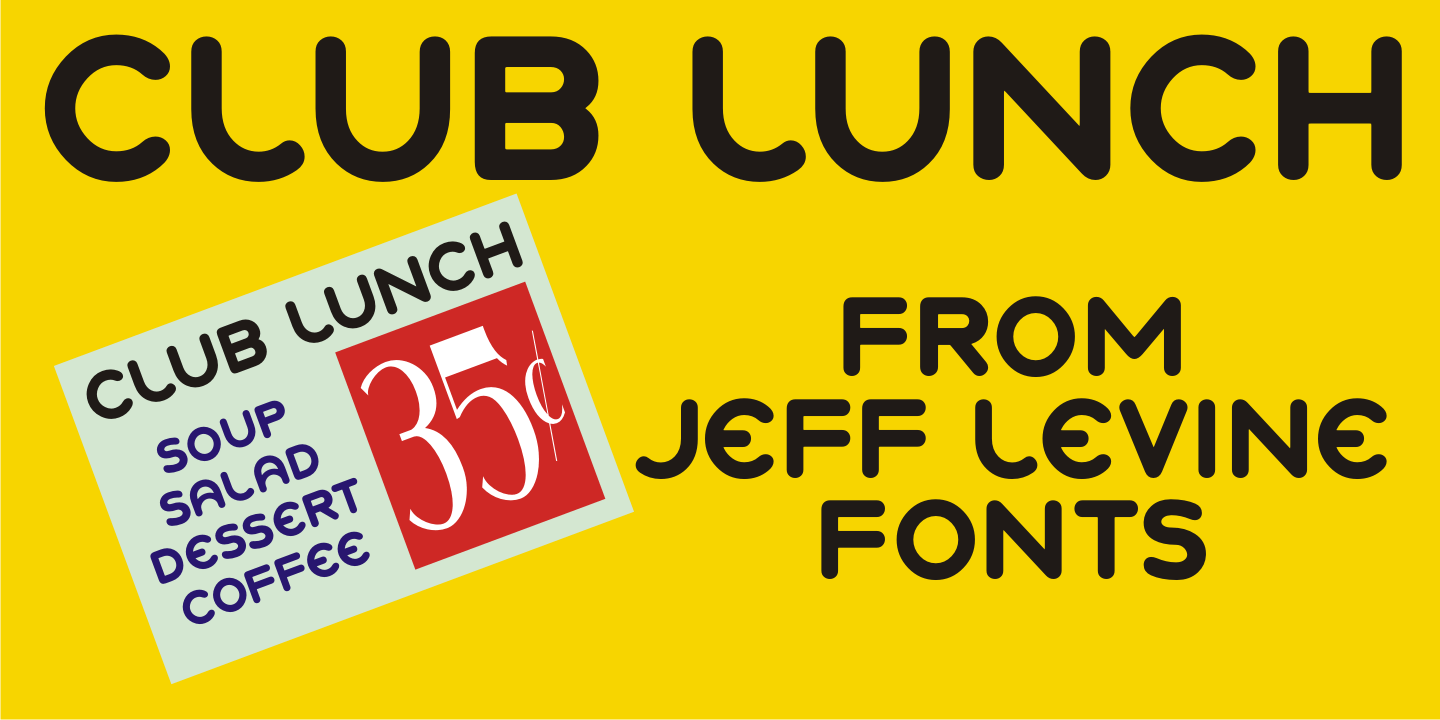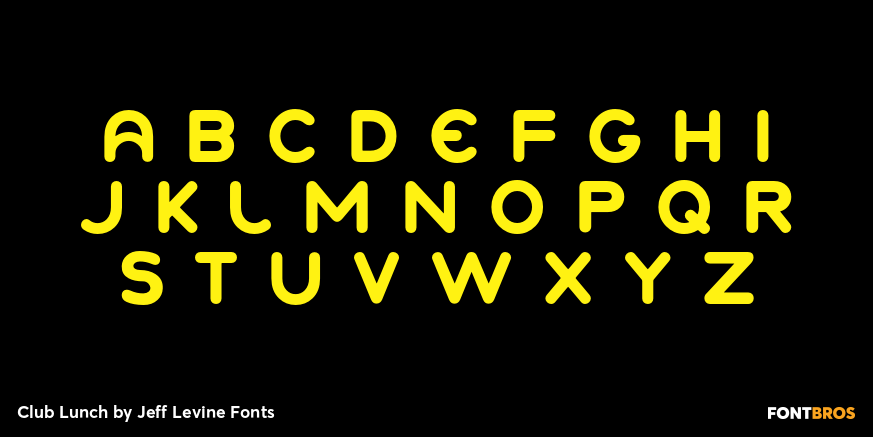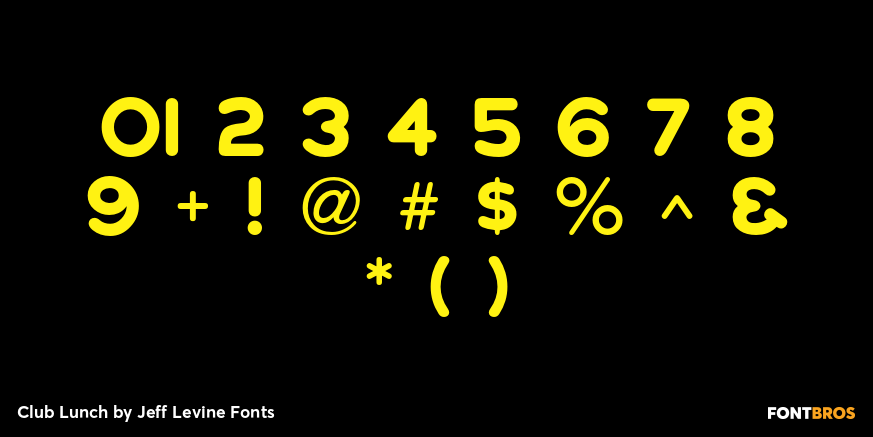
Club Lunch
A 1930s-era hand-lettered sign advertising a club lunch (consisting of soup, salad, dessert and coffee for 35 cents) provided not only the Art Deco lettering style but the name for Club Lunch JNL.